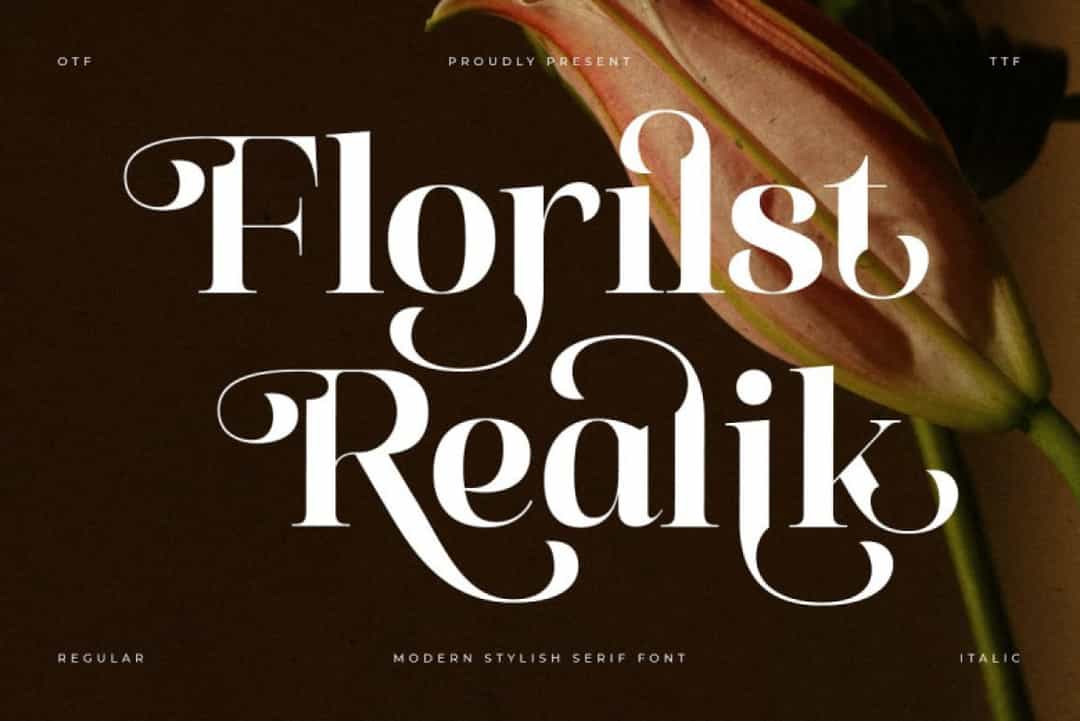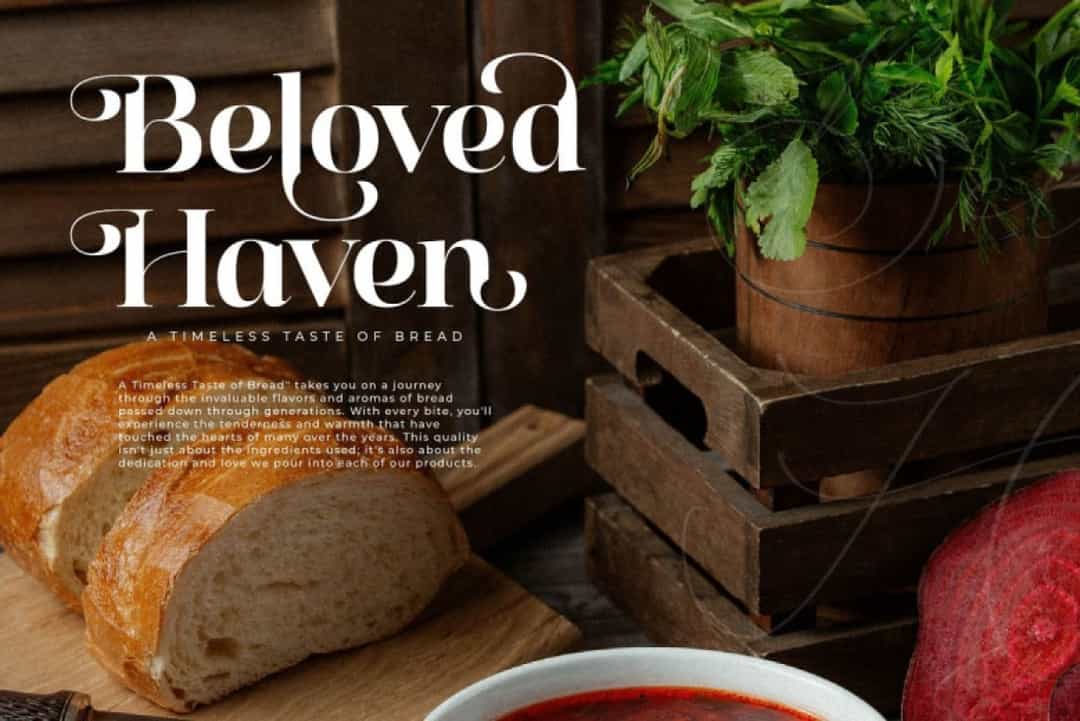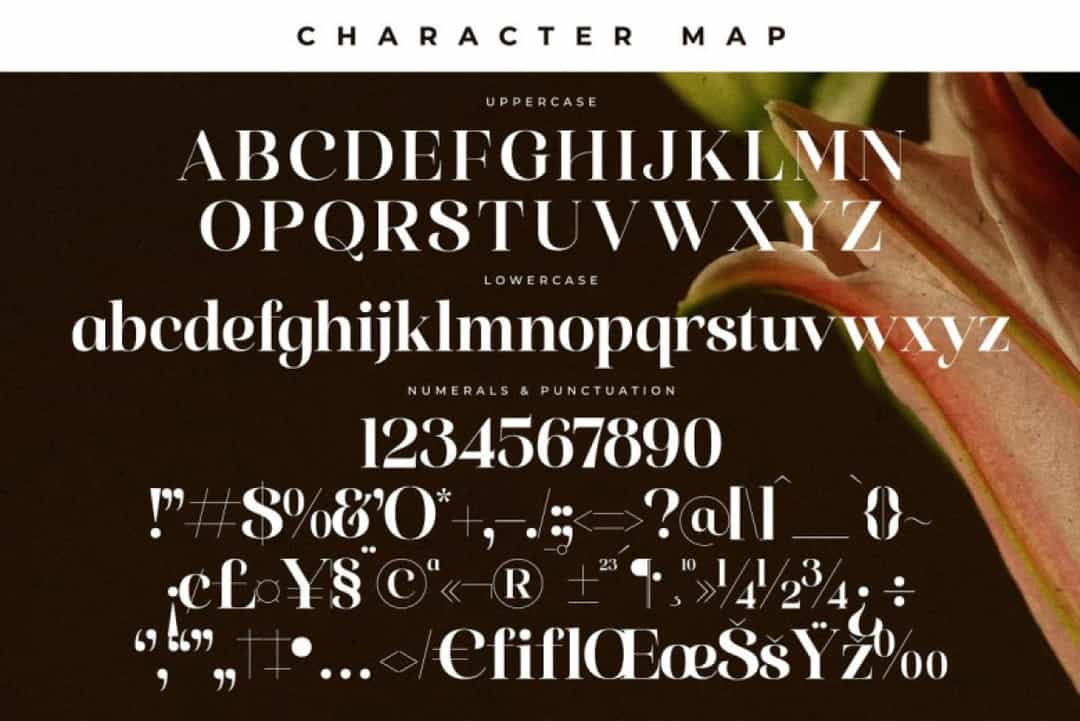
Florilst Realik is a contemporary and elegant serif font with an iconic design and contemporary appeal, making it perfect for creating sophisticated logos, movie or book covers, titles designs for fashion magazine articles or clothing lines, lettering projects or quotes among many other uses.